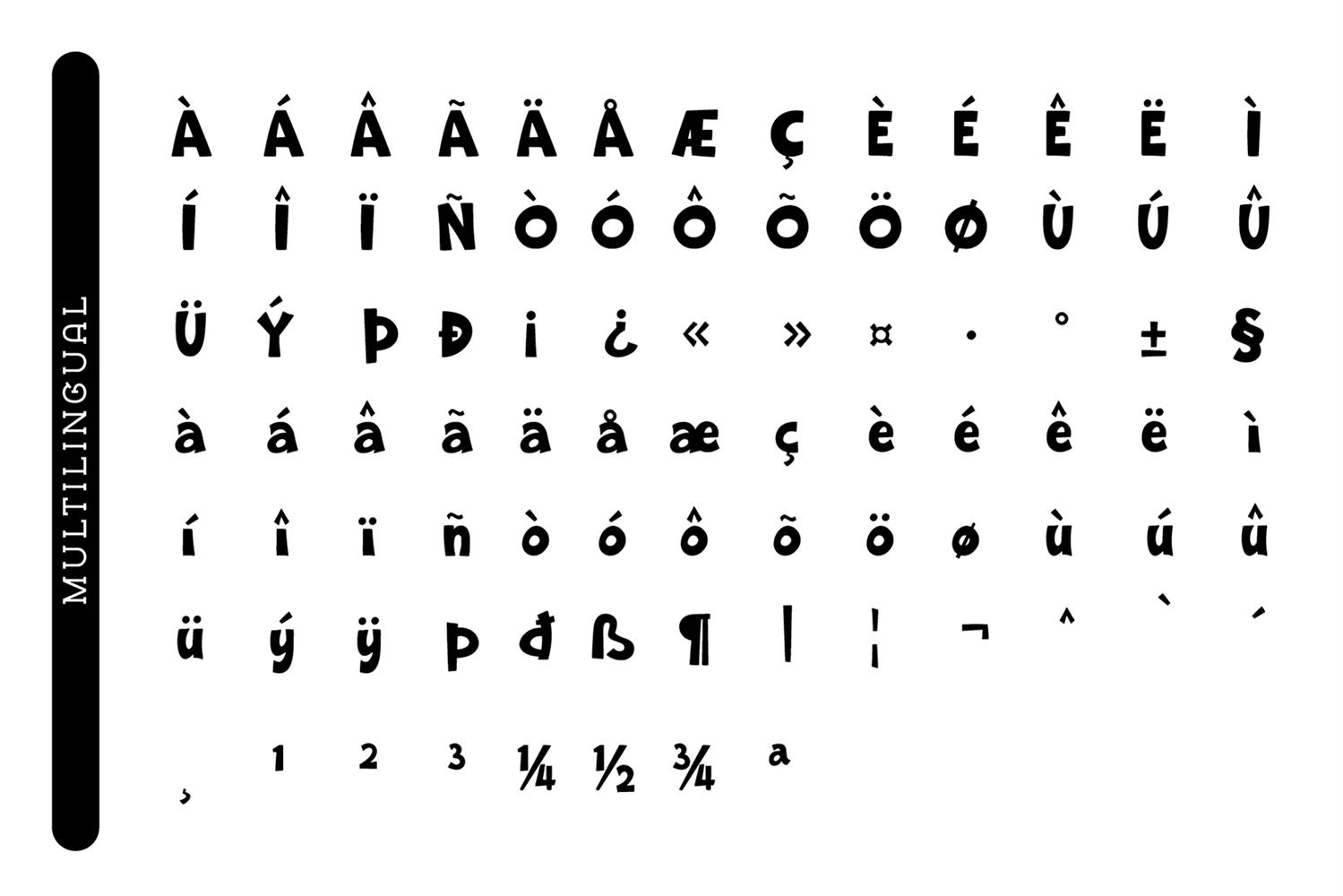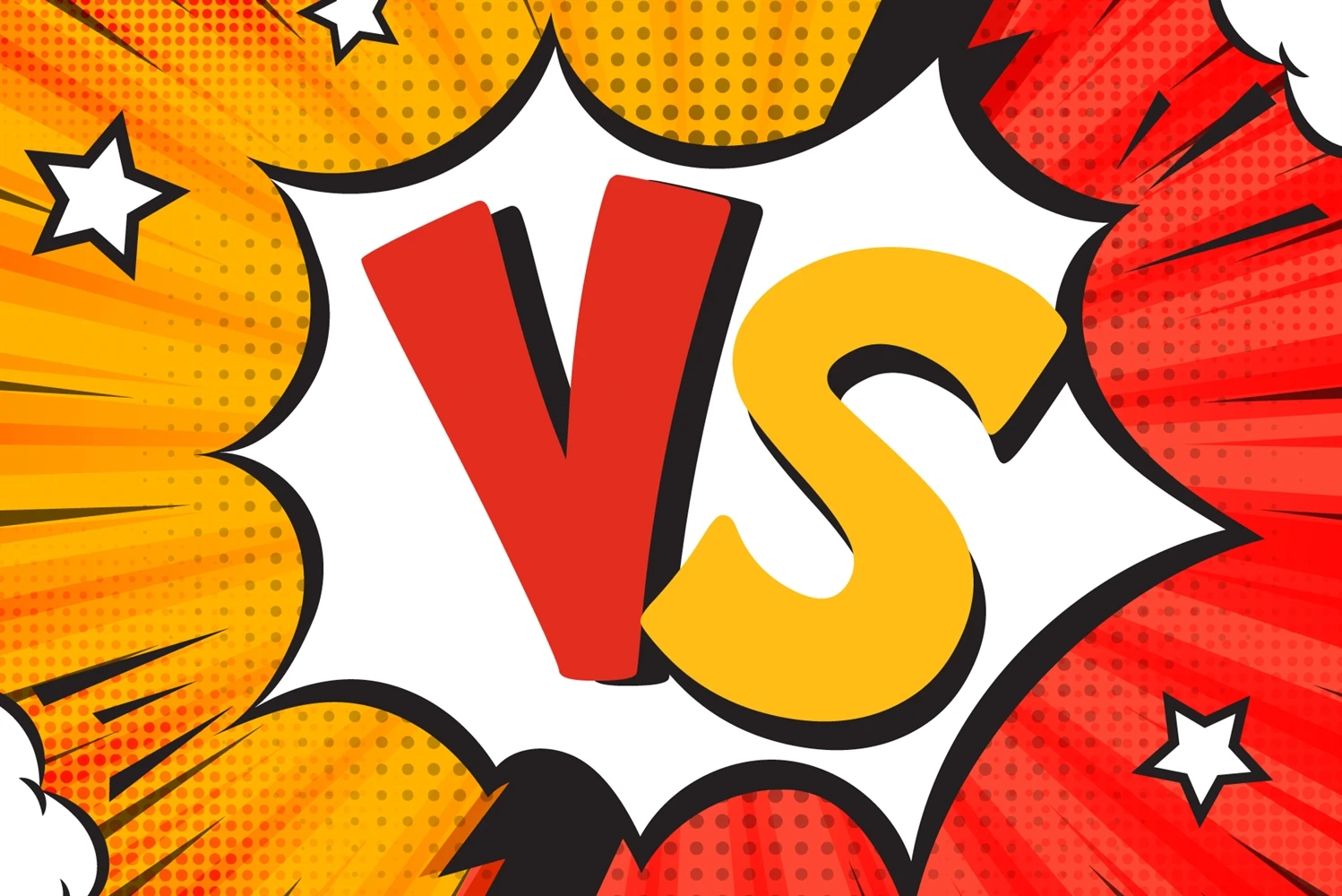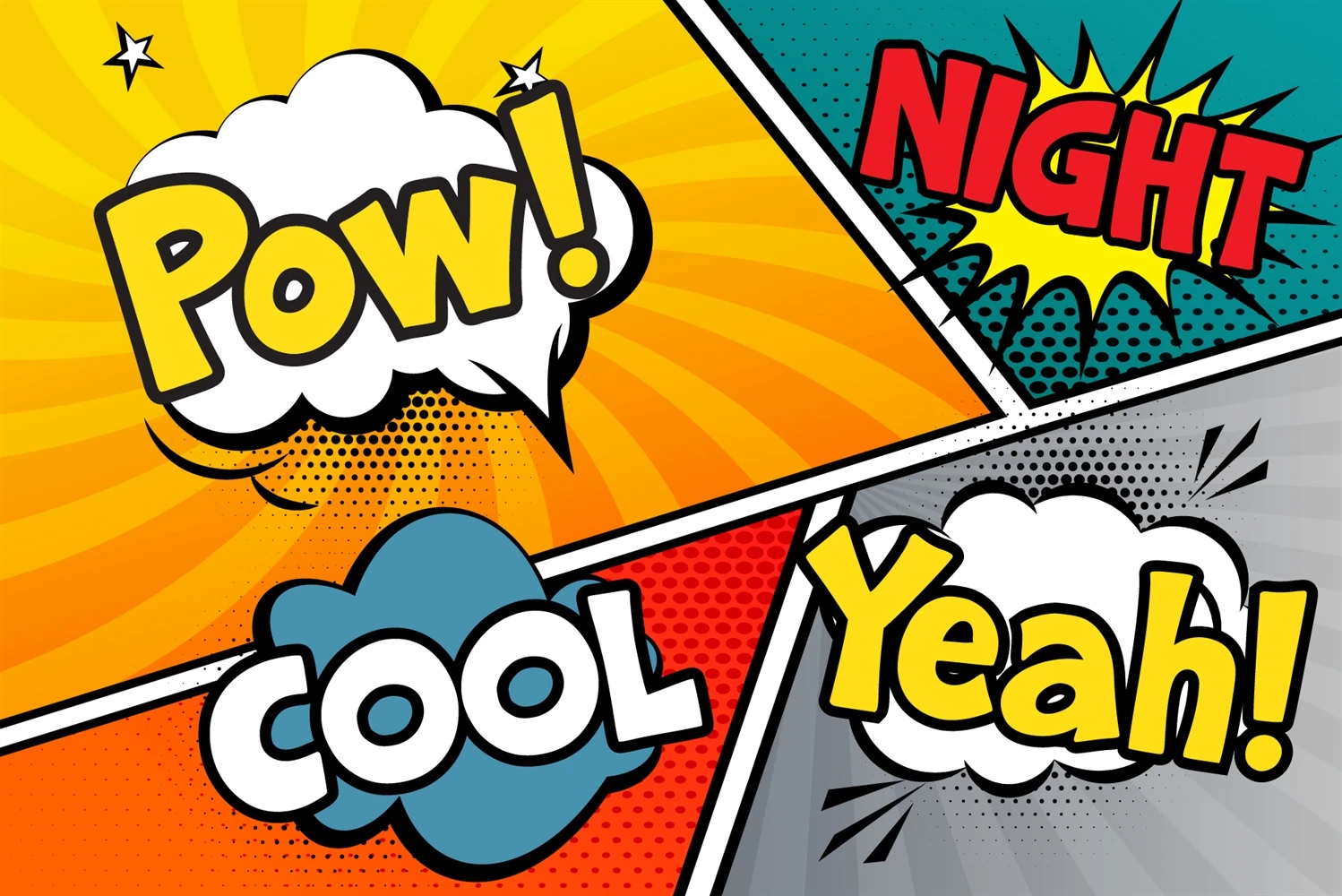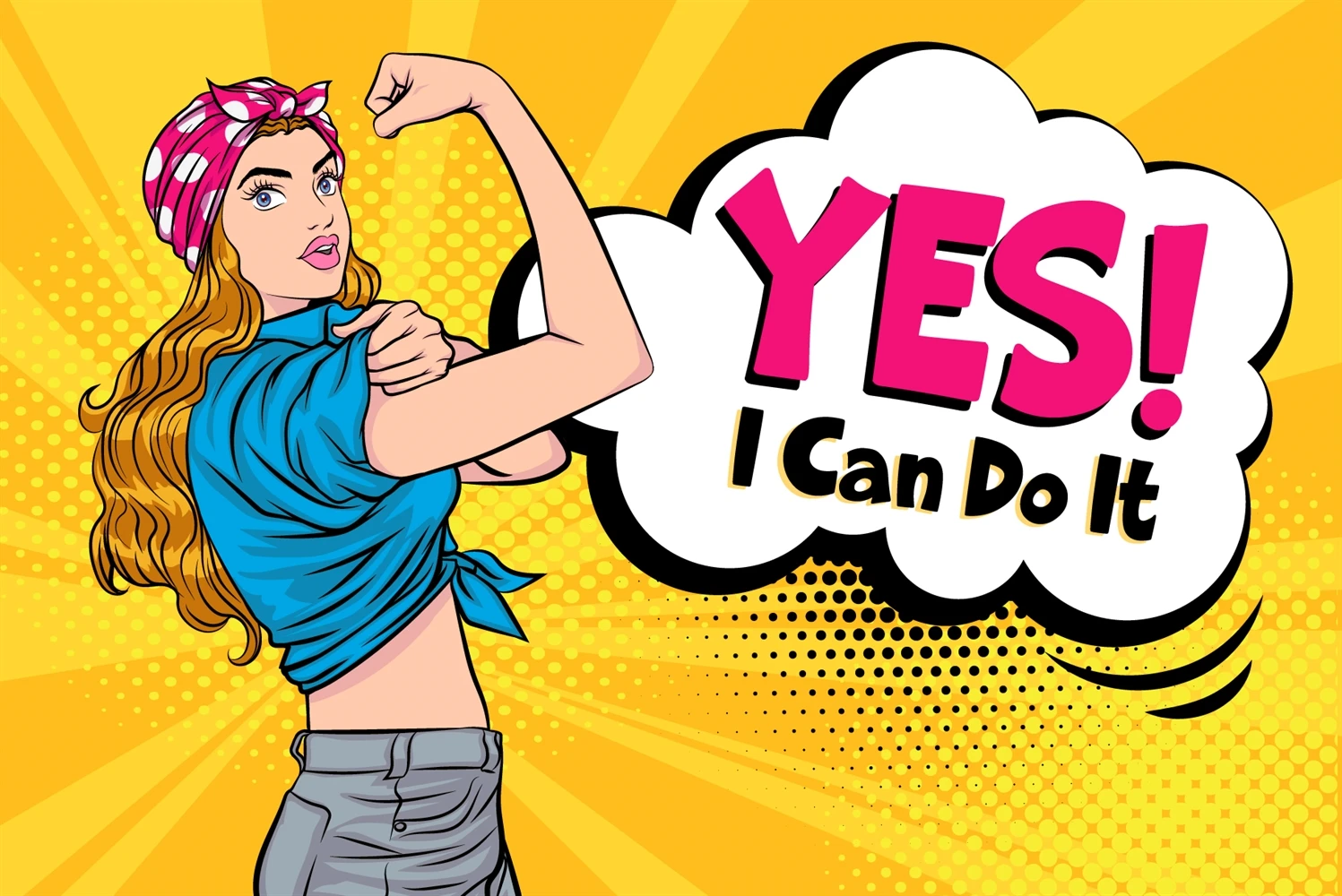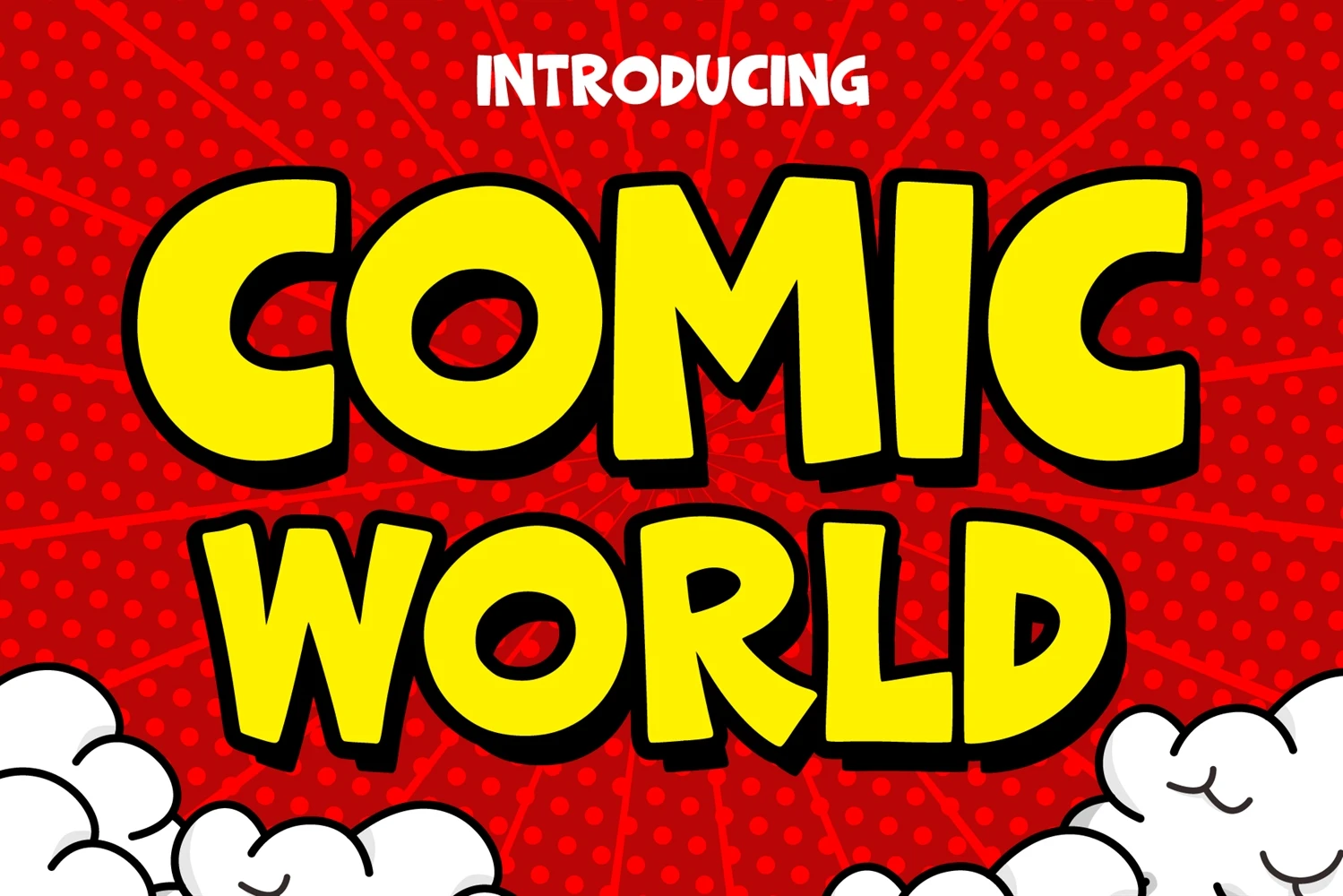
Comic World is a cool, vintage-styled display font. It is the perfect font for titles or words needing a more dramatic emphasis. Whatever the topic, this font will be a wonderful asset to your font library, as it has the potential to enhance any creation.